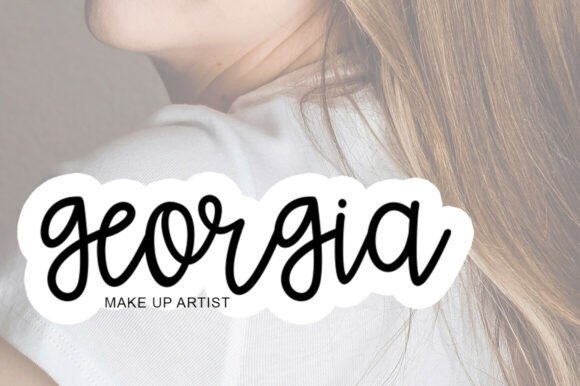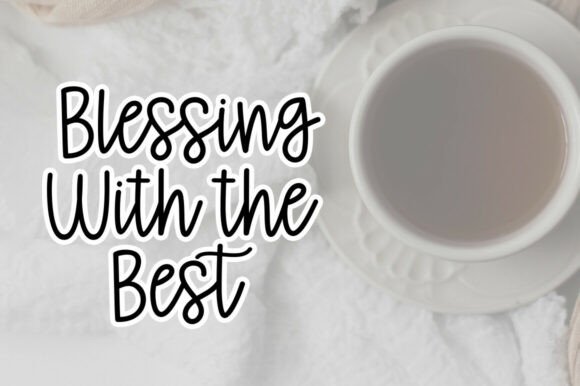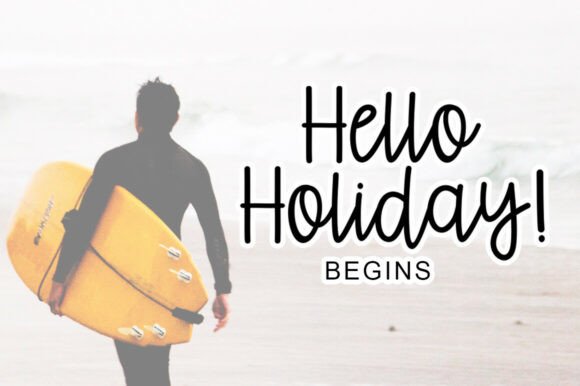
Singer Script Font
“Singer” is a modern script font that combines a stylish and elegant handwritten look with smooth curves and a natural flow. Its thick, playful strokes and soft outline give it a bold yet friendly appearance, making it perfect for branding, quotes, social media posts, invitations, and lifestyle-themed designs. The font’s contemporary style creates a casual, creative, and expressive tone suitable for both digital and print applications. As it is PUA encoded, all special and decorative characters are easily accessible without the need for additional software.